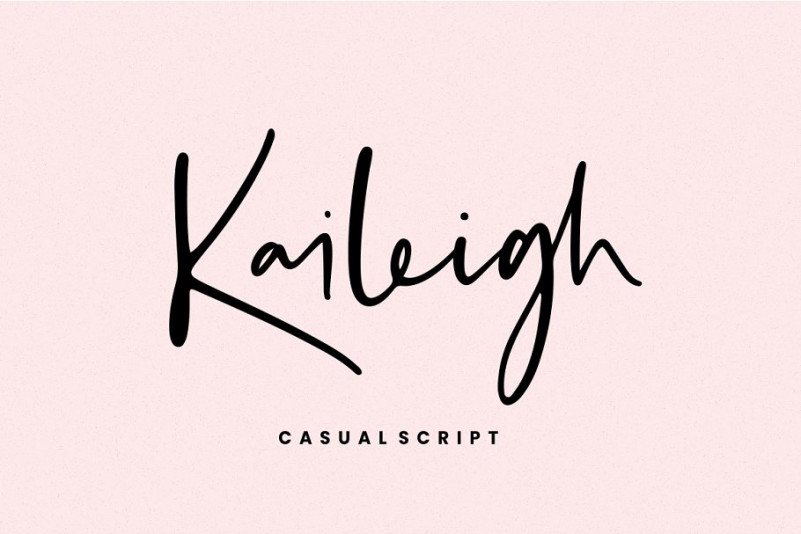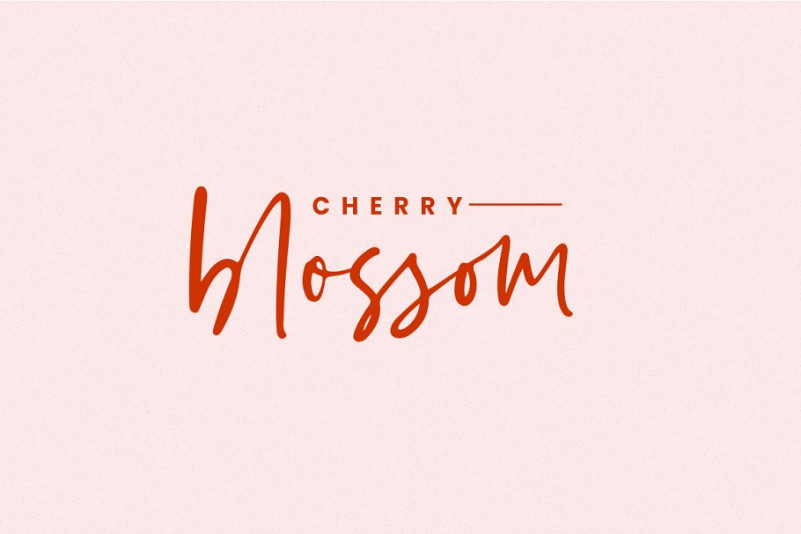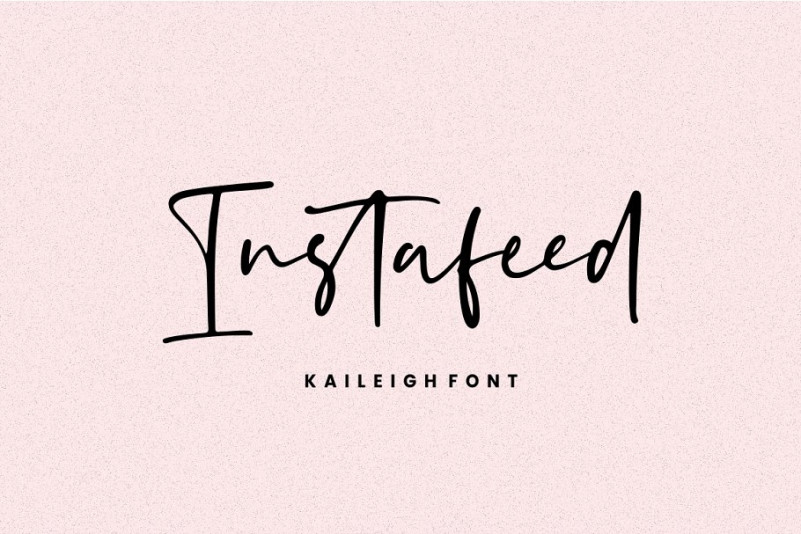
Kaileigh Handwritten Font
Introducing Kaileigh – Casual Script Font
Kaileigh is a casual handwritten font, this font perfect for logo, invitation, stationery, wedding designs, social media posts, advertisements, product packaging, product designs, label, photography, watermark, special events or anything.
Kaileigh comes with full set of uppercase and lowercase letters, 70 ligatures , multilingual symbol, numerals and punctuation.